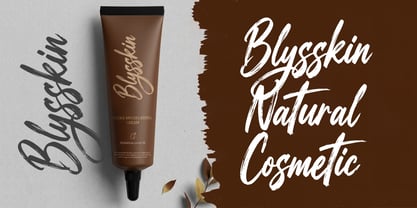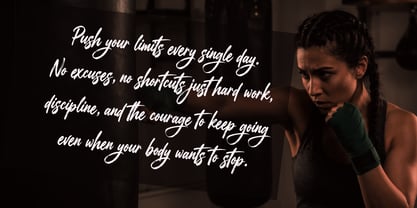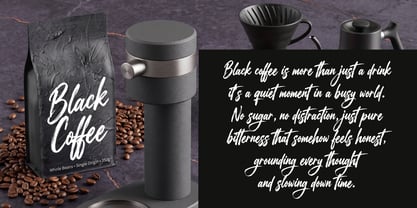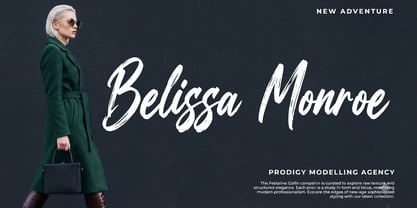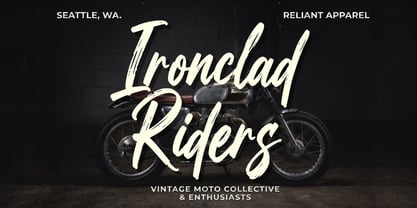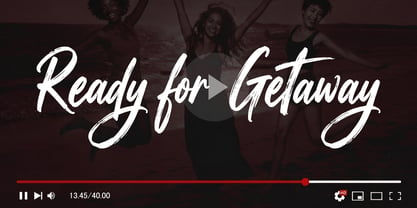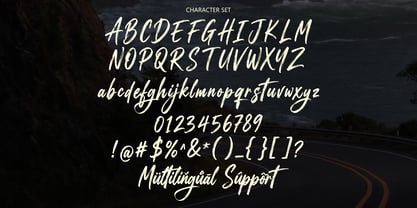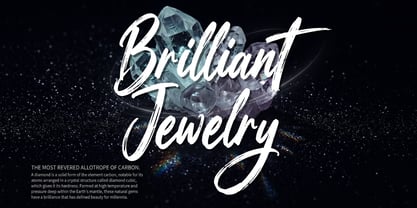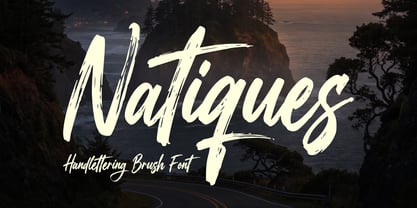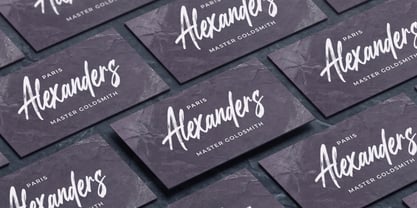
Natiques
by Sealoung
The Natiques Font Family was designed by Saiful Anwar and published by Sealoung. Natiques contains 1 styles. More about this family
Natiques – Handlettering Brush Font
Natiques is a bold and expressive handlettering brush font that captures the raw beauty of natural brush strokes. Designed with an authentic hand-drawn feel, this font delivers a strong visual impact while maintaining a smooth and stylish flow.
With its textured strokes and dynamic movement, Natiques brings a perfect balance between rugged energy and modern elegance. Each letter is crafted to feel alive—making your designs look more personal, artistic, and eye-catching.
Whether you’re creating branding materials or standout visuals, Natiques adds a powerful handcrafted touch that elevates your work to the next level.
Features:
• Uppercase & lowercase letters
• Numbers & punctuation
• Multilingual support
• Natural brush texture
• Smooth & energetic strokes
• Perfect for display and headline use
Natiques is the perfect choice for designers who want to create bold, stylish, and expressive designs with a handcrafted feel.